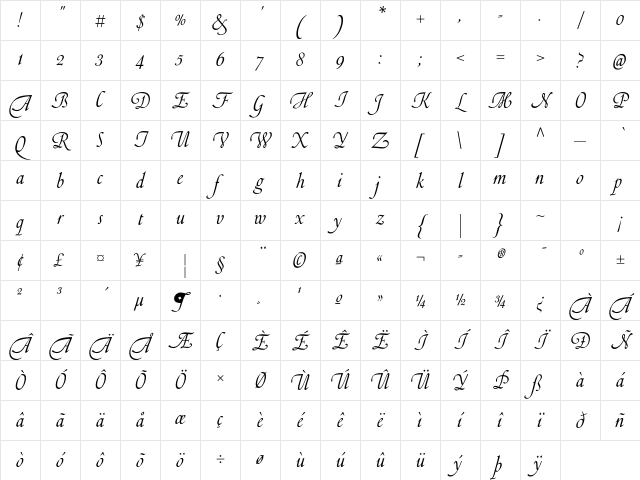
Complete LTC Artscript Pro Regular glyph index. Displaying only characters natively supported by LTC Artscript Pro Regular font.
LTC Artscript Pro flows with the natural rhythm of handwritten lettering, making it ideal for designs that call for warmth and personal expression.
Font Pairing: Combine LTC Artscript Pro with a simple geometric sans for maximum contrast - the tension between flowing curves and clean structure is a classic typographic pairing.
Pro Tip: Use LTC Artscript Pro for short runs of text - names, titles, or taglines. Extended body copy in script faces tires the eye quickly.